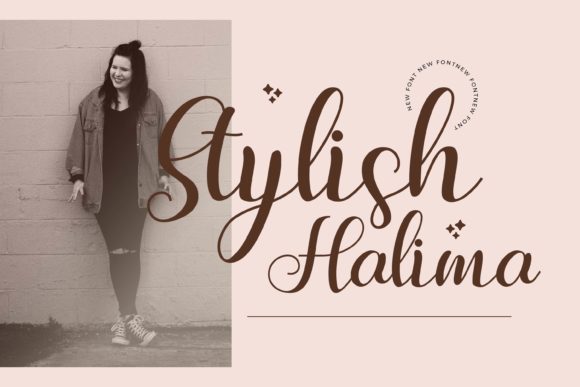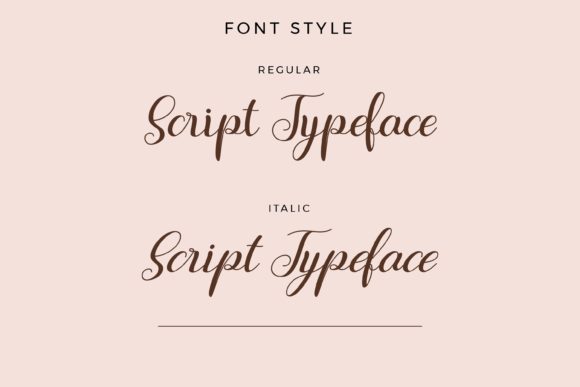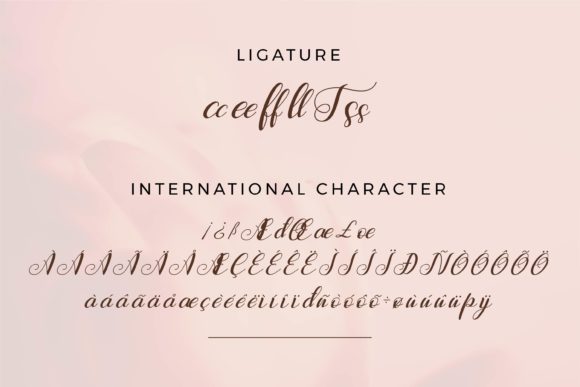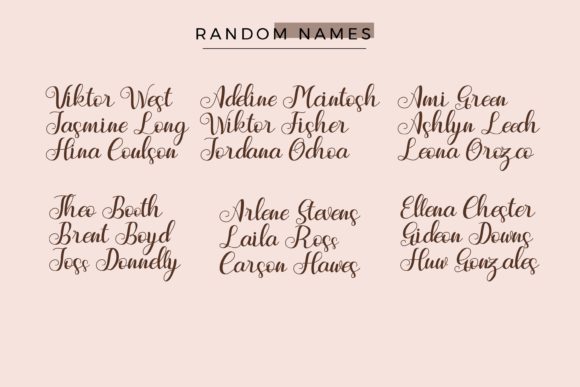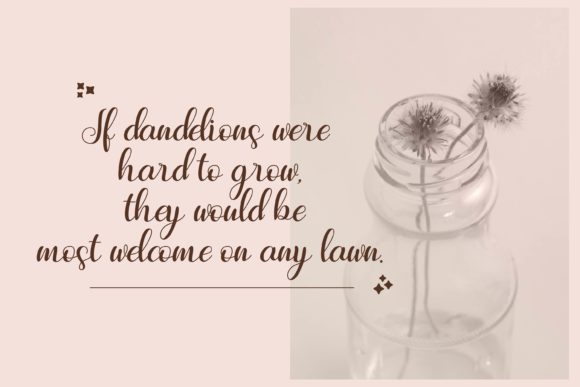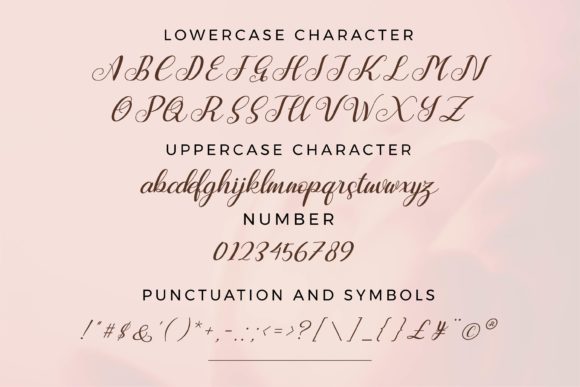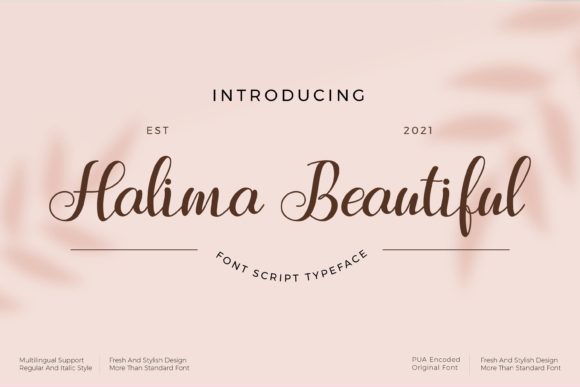
Introducing Halima Beautiful Font: Elevate Your Designs with Elegance and Class
In the world of typography, a beautiful font can make all the difference in creating a lasting impression. For designers and crafters seeking to add a touch of elegance and sophistication to their work, Halima Beautiful Font is an exquisite choice. This lovely and delicate script font is specifically designed to bring a refreshing and refined look to your designs, setting them apart from the ordinary.
The Beauty of Halima: A Delicate Script Font
Halima Beautiful Font is a meticulously crafted script font that embodies the essence of elegance and class. Its delicate strokes and curves are designed to add a touch of sophistication to any design, making it perfect for projects that require a refined and luxurious feel. Whether you’re working on a branding project, wedding invitation, or social media graphics, Halima Beautiful Font is sure to impress.
Key Features of Halima Beautiful Font
- Delicate and Elegant Design: Halima Beautiful Font features a delicate and elegant design that exudes sophistication and refinement.
- Script Font Style: This font is a beautiful script font that adds a touch of luxury and glamour to any design.
- Easy to Read: Despite its delicate nature, Halima Beautiful Font is easy to read, making it perfect for body text and headlines.
- Multilingual Support: This font supports multiple languages, making it a great choice for designers working on international projects.
Uses of Halima Beautiful Font
Halima Beautiful Font is a versatile font that can be used in a variety of design projects, including:
- Branding and Logo Design: Add a touch of elegance and sophistication to your brand’s logo and visual identity.
- Wedding and Event Invitations: Create beautiful and luxurious wedding invitations, save-the-date cards, and event flyers.
- Social Media Graphics: Elevate your social media graphics, including Facebook posts, Instagram stories, and Twitter headers.
- Packaging Design: Add a touch of luxury to your product packaging and labels.
- Stationery and Paper Products: Create beautiful and elegant stationery, including letterheads, business cards, and journals.
Why Choose Halima Beautiful Font?
With so many fonts available, why choose Halima Beautiful Font? Here are a few reasons:
- Unique and Distinctive Design: Halima Beautiful Font features a unique and distinctive design that sets it apart from other fonts.
- Elegant and Sophisticated: This font exudes elegance and sophistication, making it perfect for high-end designs.
- Support for Multiple Languages: This font supports multiple languages, making it a great choice for international designers.
In conclusion, Halima Beautiful Font is a stunning script font that adds a touch of elegance and sophistication to any design. Its delicate strokes and curves make it perfect for designers and crafters seeking to create luxurious and refined designs. With its ease of use, compatibility with popular design software, and support for multiple languages, Halima Beautiful Font is an excellent choice for a wide range of design projects.